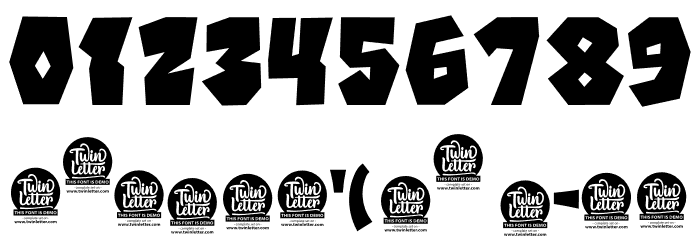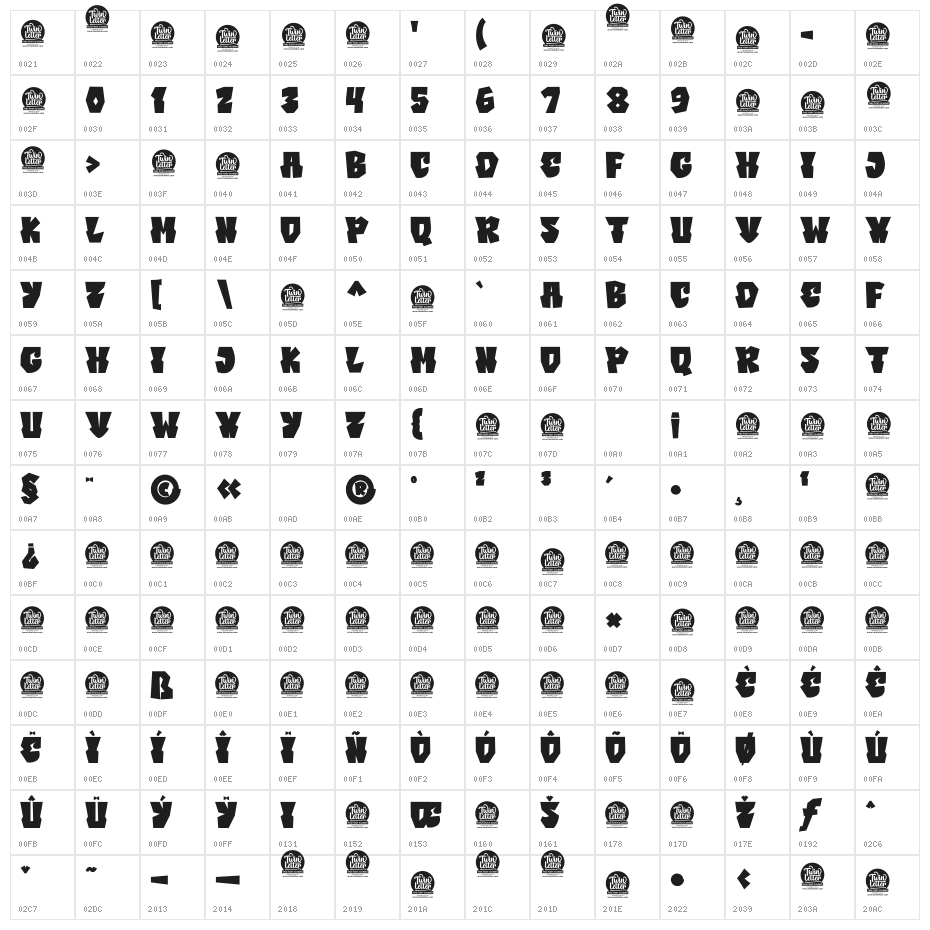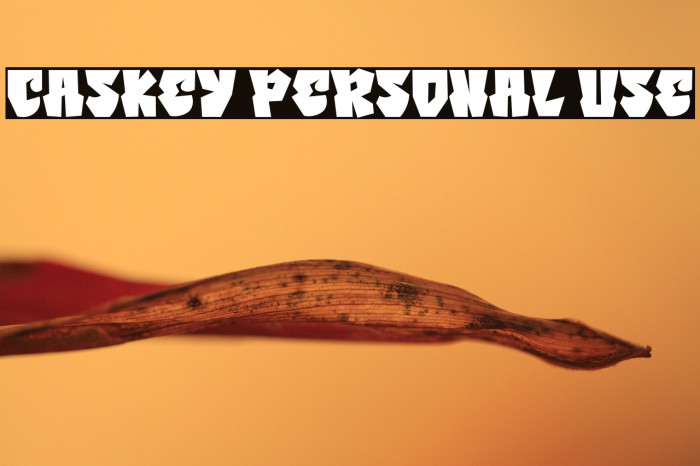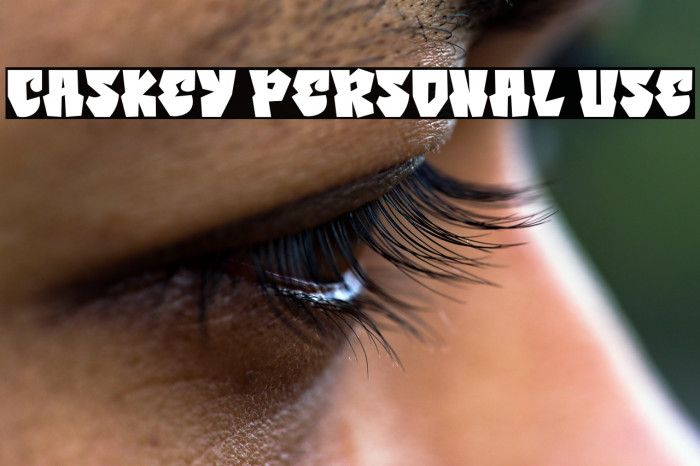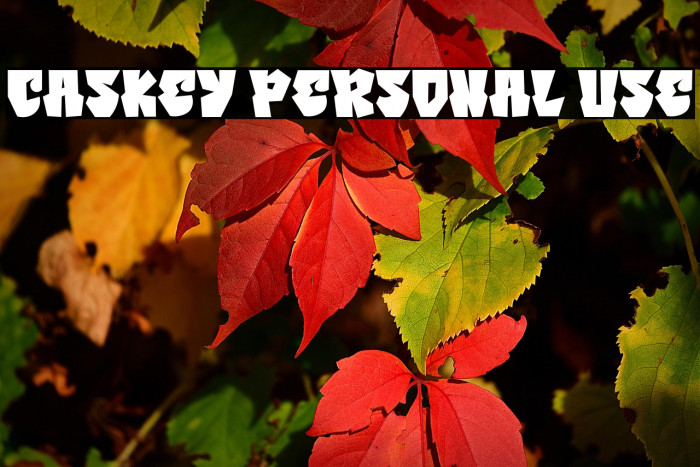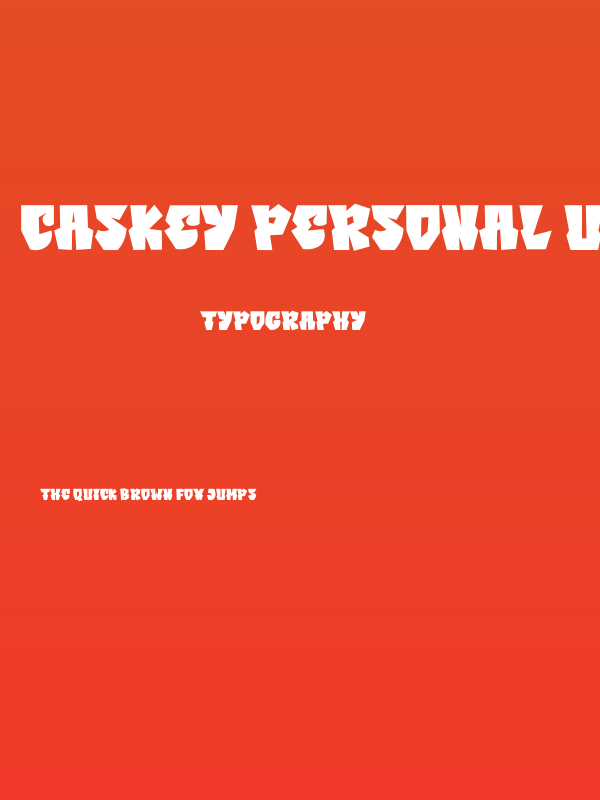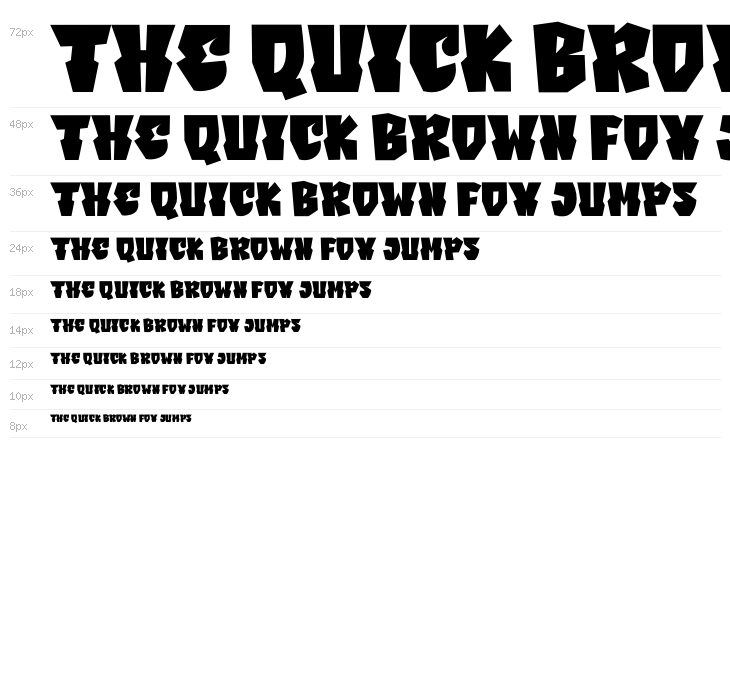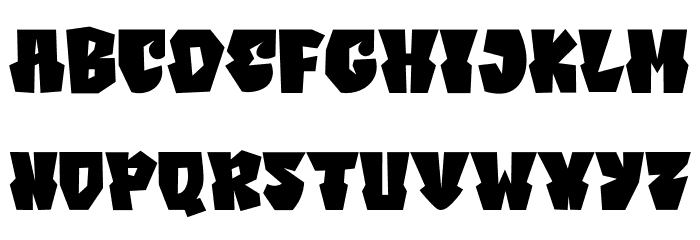
Caskey Personal Use Font
Caskey Personal Use Description
This font features a bold and striking design with angular, geometric shapes that create a sense of movement and energy. The characters are heavily stylized, with sharp edges and a blocky appearance that gives them a modern, edgy feel. The uppercase and lowercase letters maintain a consistent style, while the numbers and special characters complement the overall aesthetic. This font is perfect for projects that require a strong visual impact and a contemporary look.